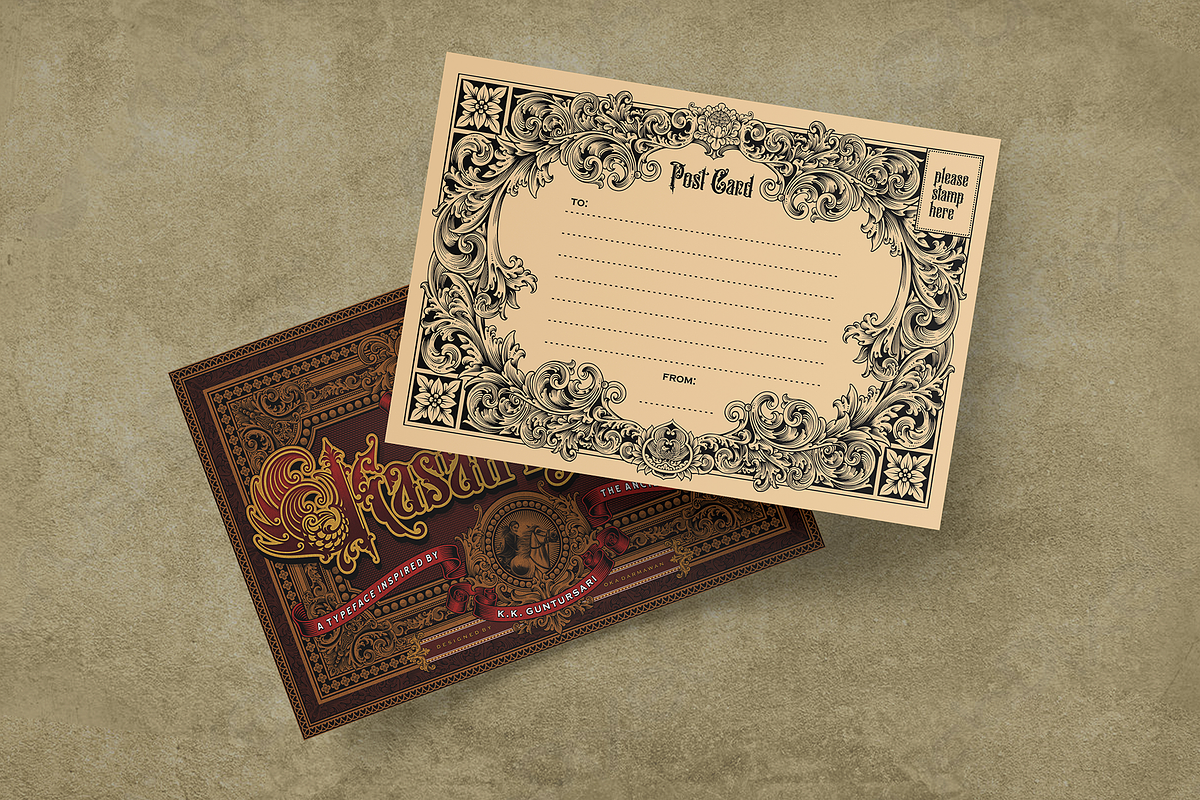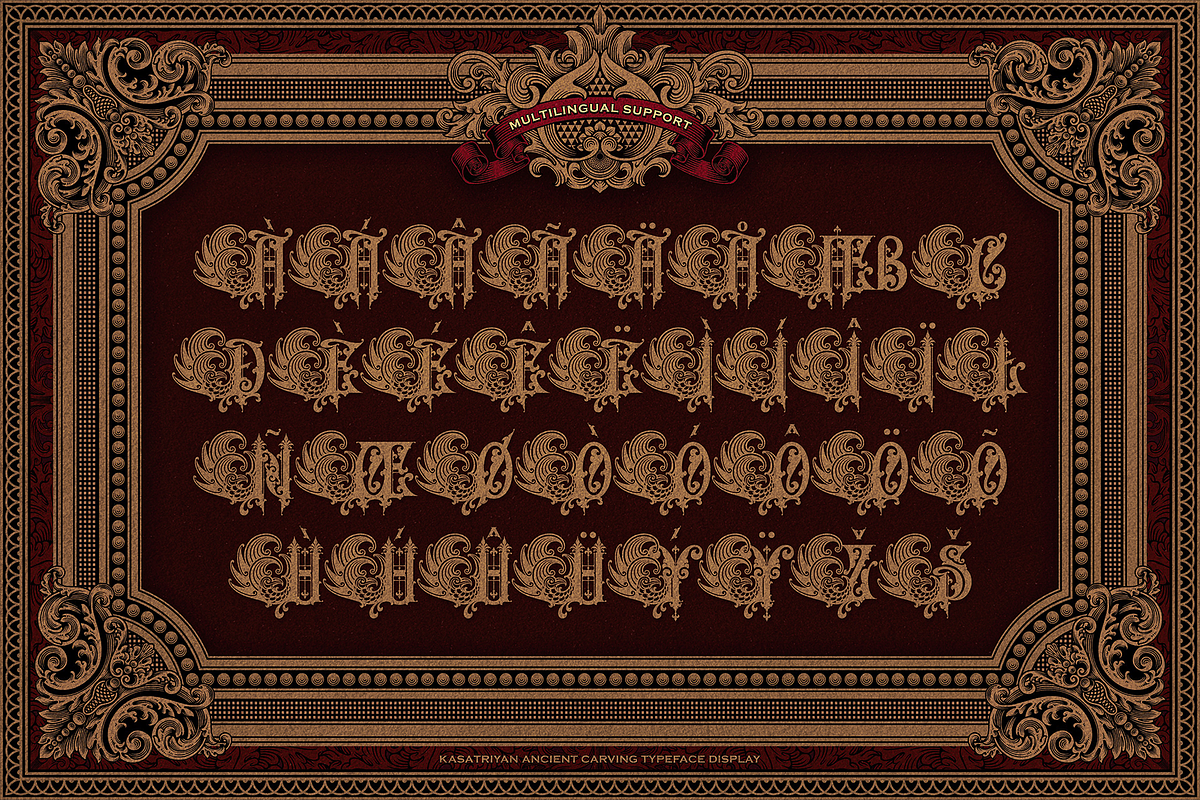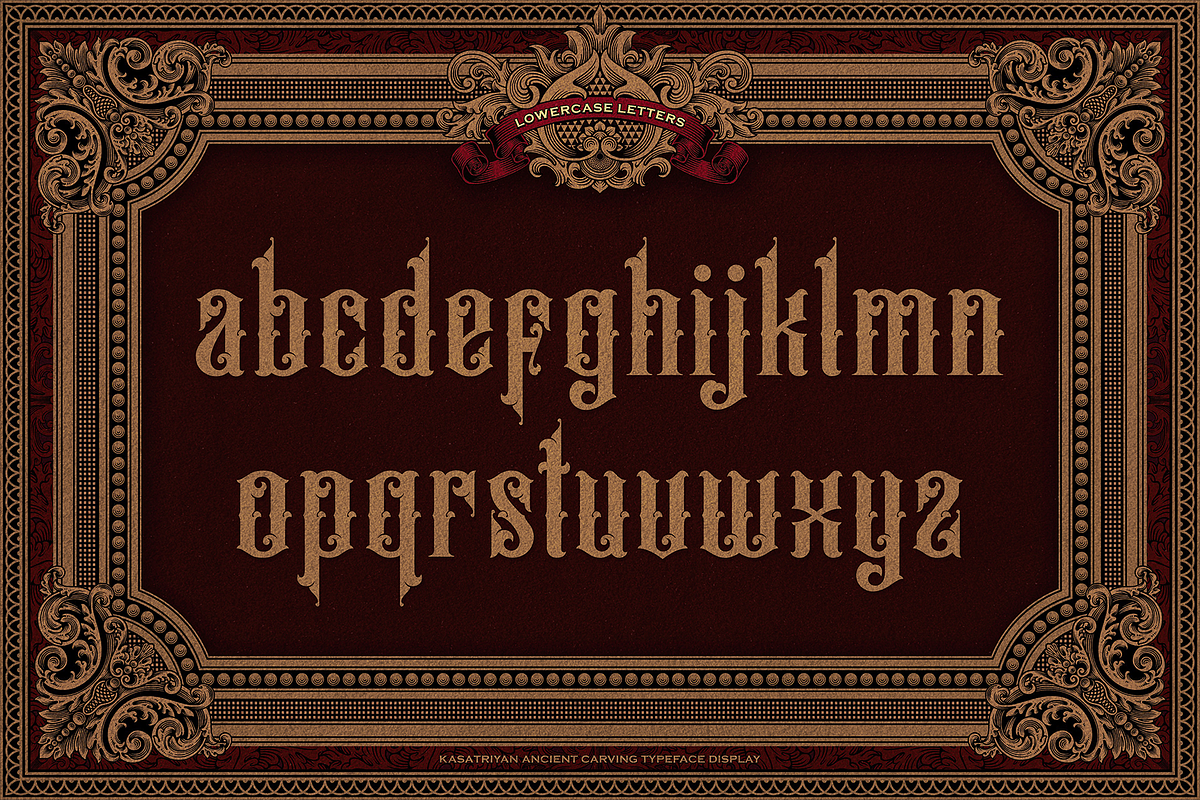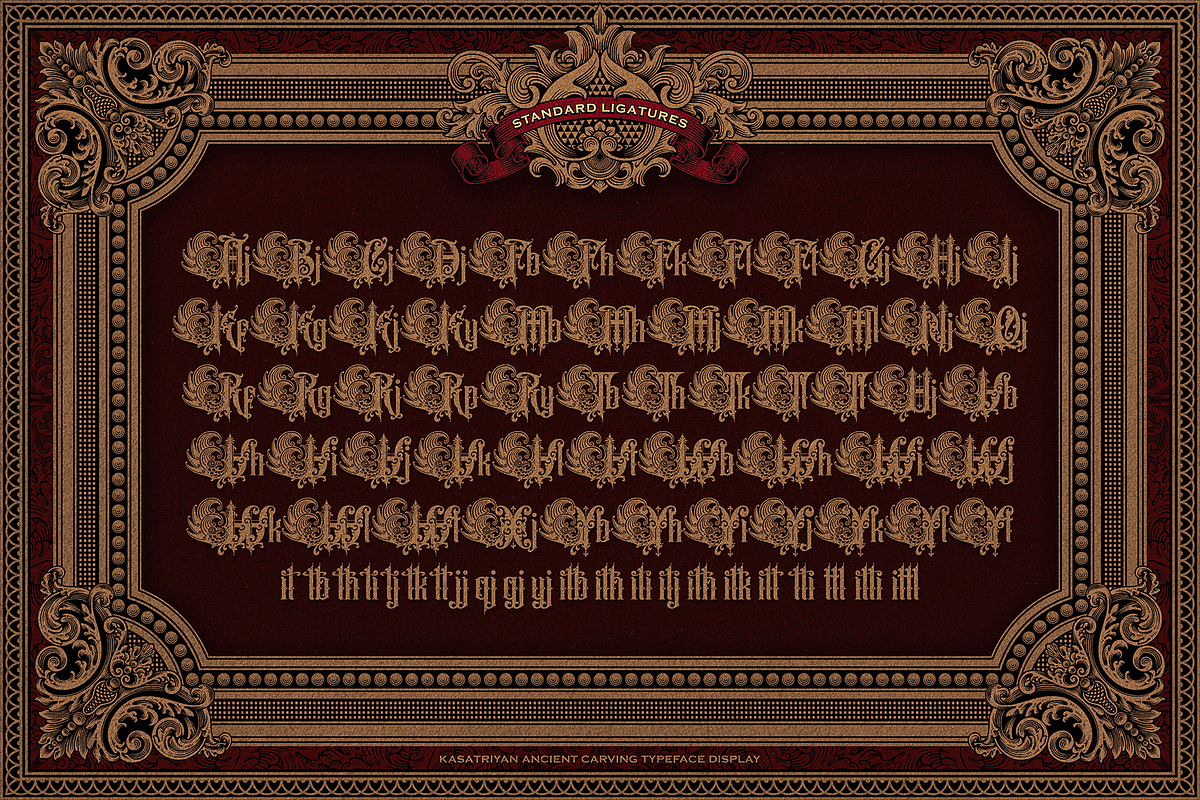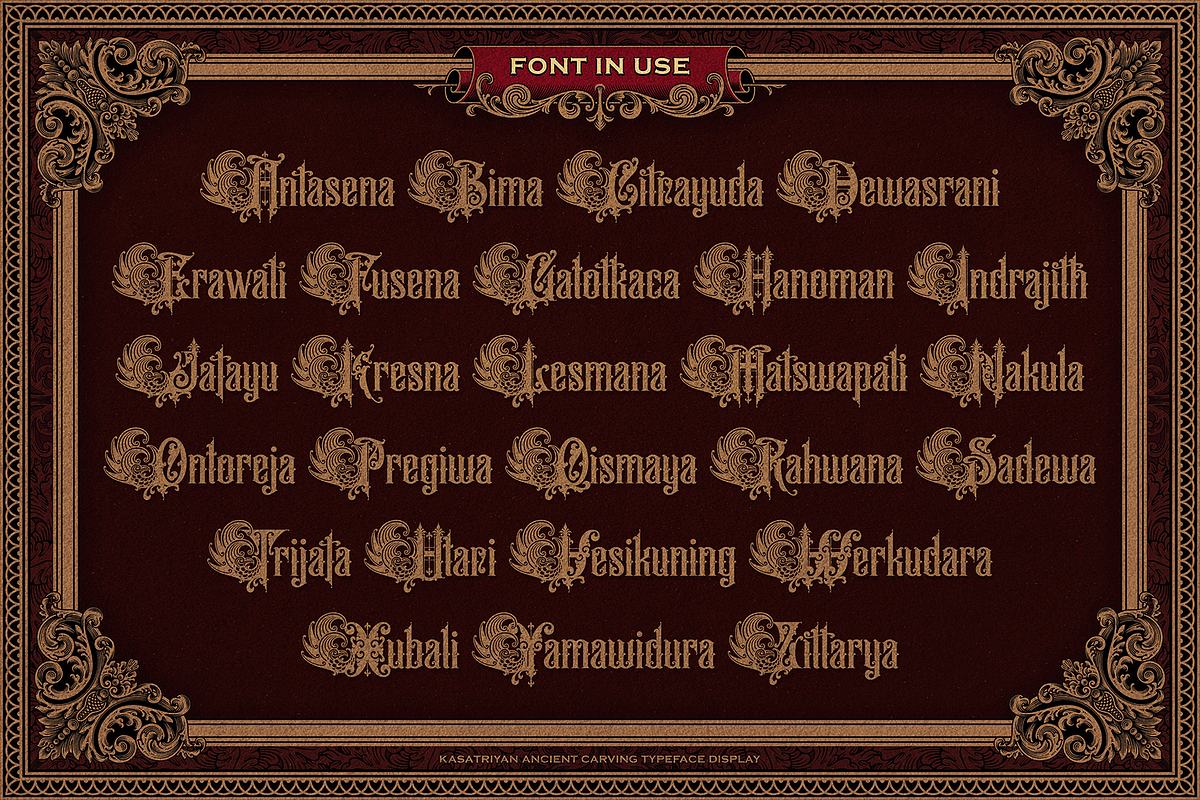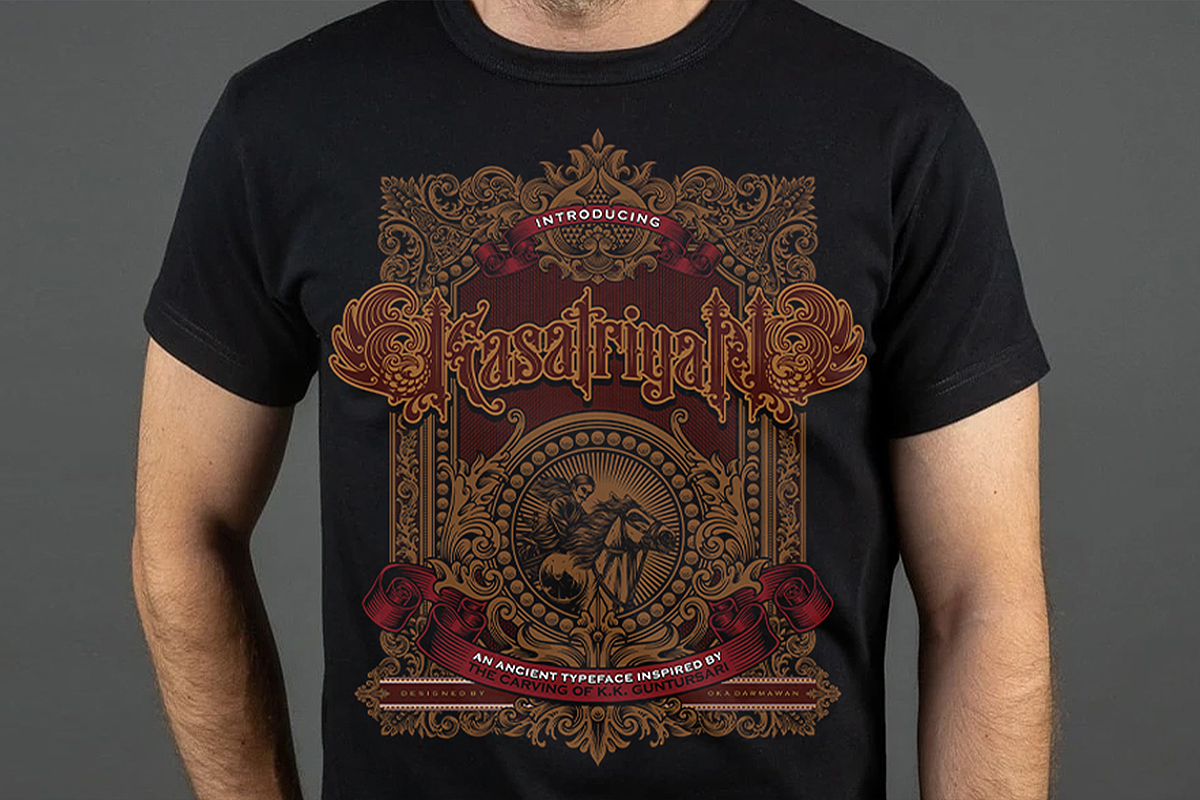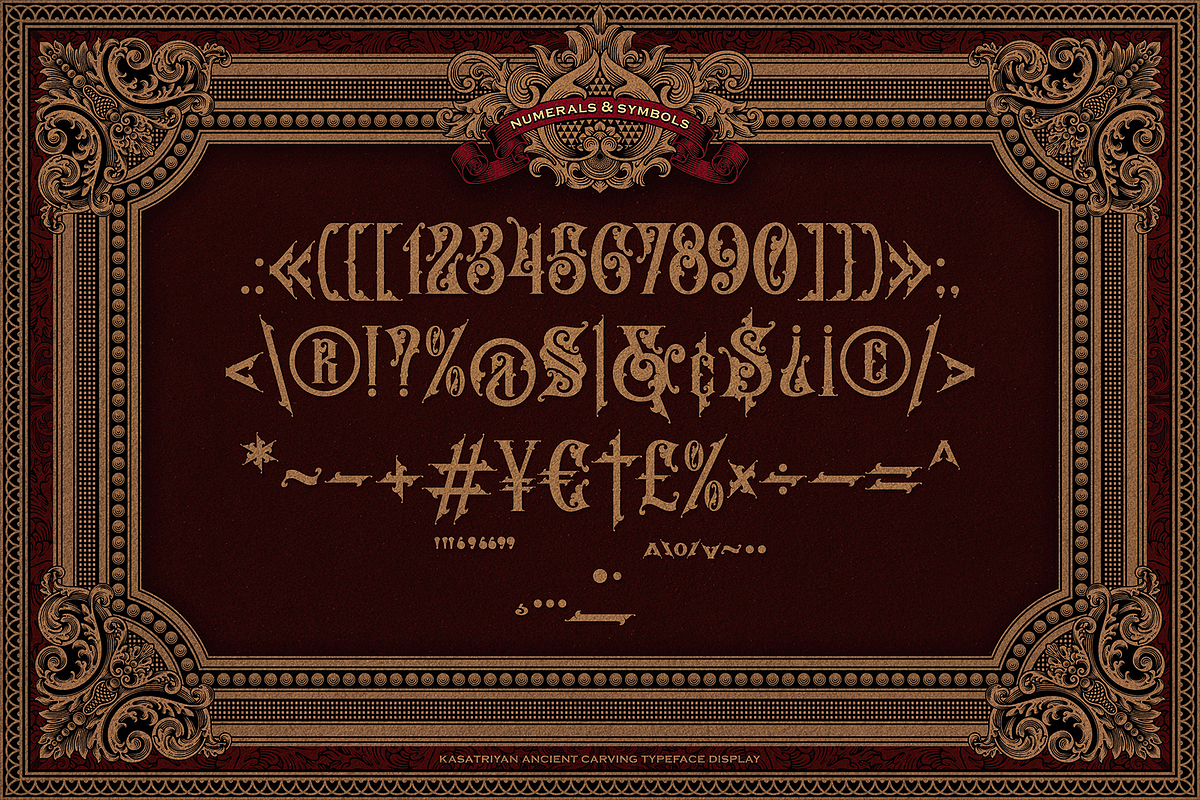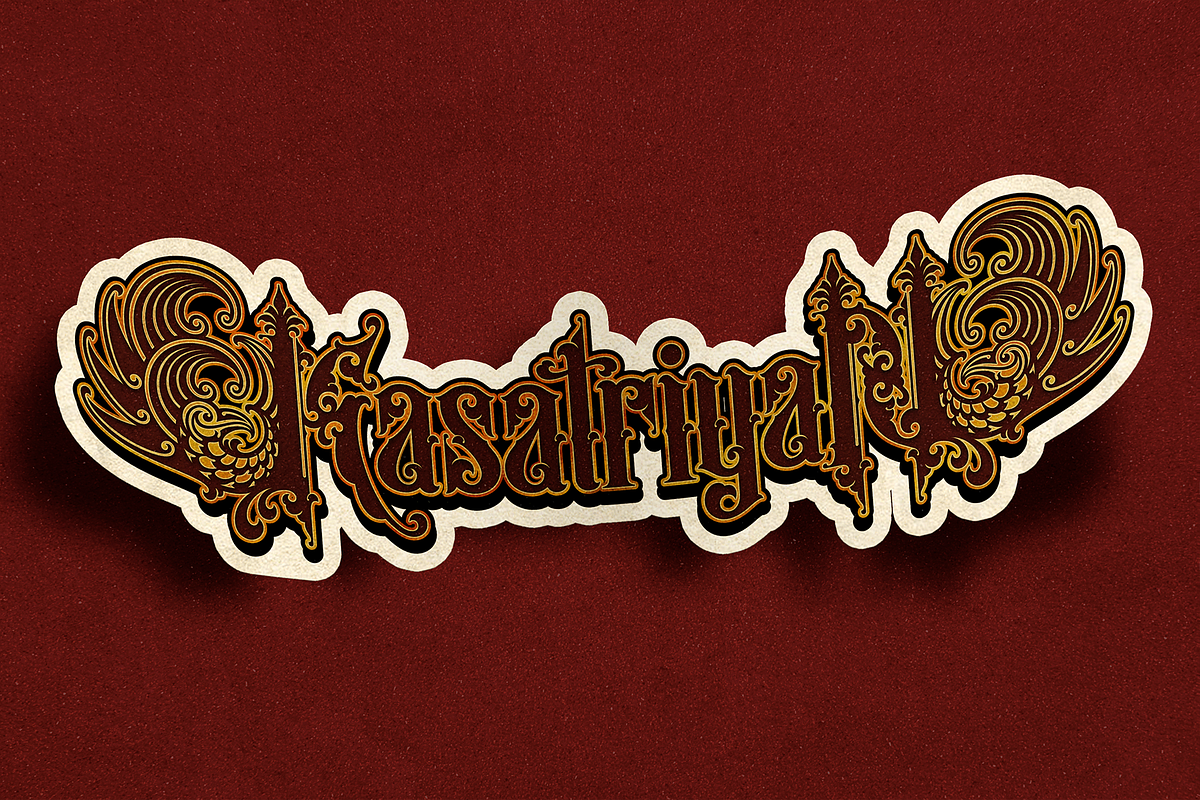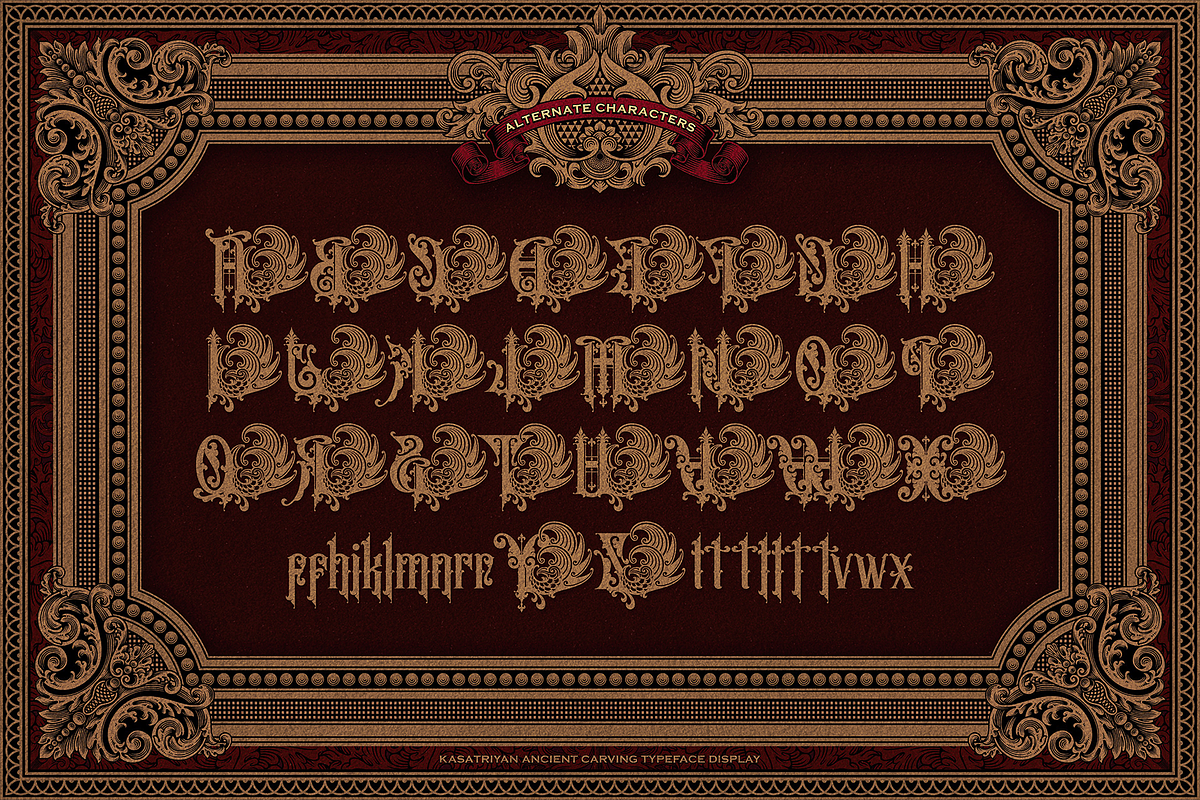
Kasatriyan Ancient Typeface
Kasatriyan Ancient Typeface by Songopitoe
Hi everyone! I would like to introduce you to a culture-themed typeface, "Kasatriyan". This typeface is an adaptation of the motif of a hundreds of years old ancient carving named Kanjeng Kyai Guntur Sari, which is the legacy of the First King of Kraton Jogja "Sri Sultan Hamengkubuwono I" a.k.a "Prince Mangkubumi".
This typeface is included in the Display Typeface category with a Victorian style. This typeface was designed to introduce and preserve one of the Yogyakarta's cultural heritage, specifically the historic carving art found in the gamelan K.K. Guntur Sari. This typeface project is also the final project in completing my undergraduate degree at Indonesian Institute of the Arts Yogyakarta. Hopefully it can provide motivation for all of us, to continue to explore all the abundant cultural potentials of the Indonesian nation, and always develop it to become something new.
- Alternate Characters
- Discretionary Ligatures
- Support Multilingual Characters